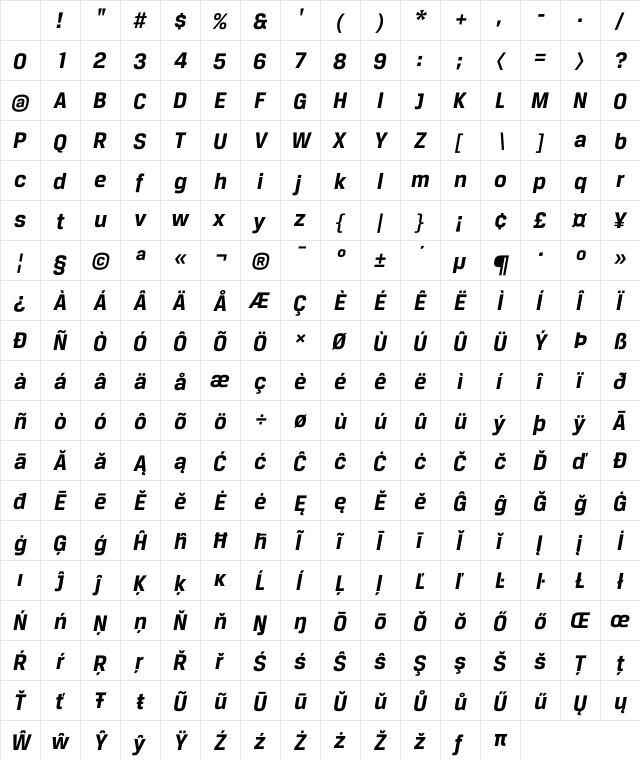
Complete BreuerText Bold Italic glyph index. Displaying only characters natively supported by BreuerText Bold Italic font.
BreuerText is a composed and adaptable typeface that performs quietly and consistently across a wide range of design contexts. The slanted form adds forward momentum and visual energy. Its bold stroke weight gives it real presence on the page.
Pro Tip: Use BreuerText for emphasis, pull quotes, and subheadings where its slanted energy can add rhythm to the layout.